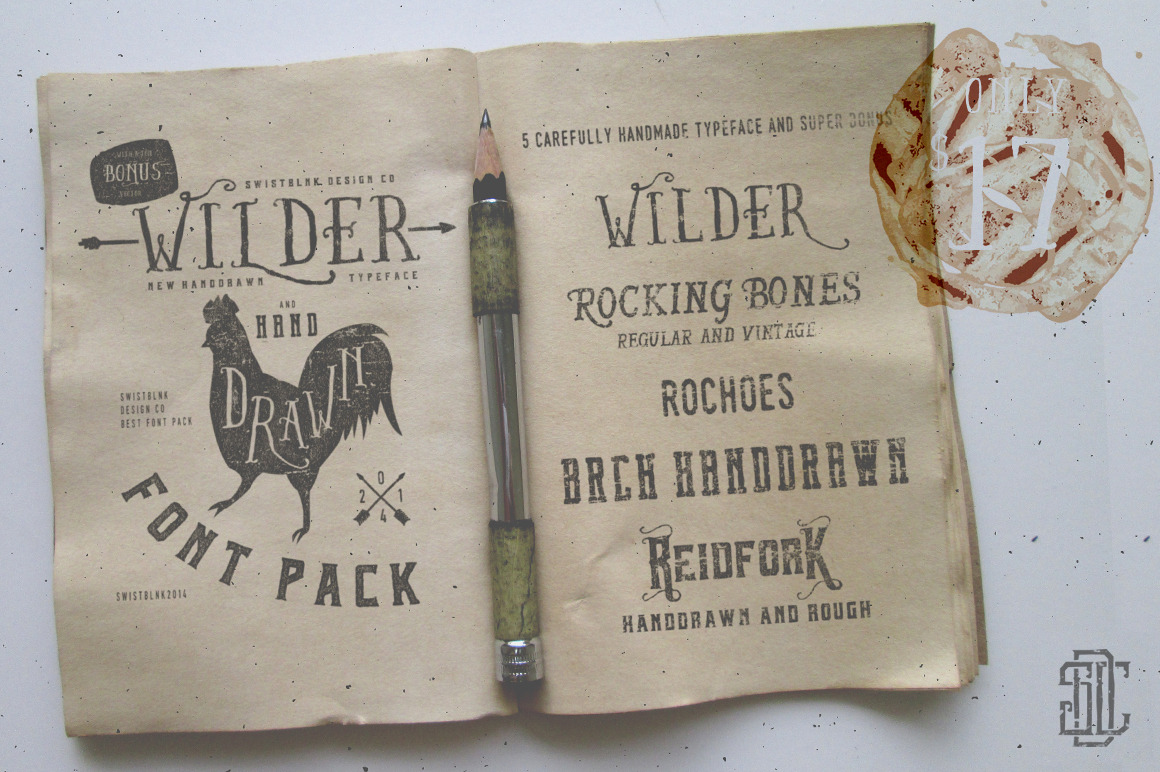
Wilder and Handdrawn Font Pack
- Rochoes : http://crtv.mk/cbts
- Rocking Bones : http://crtv.mk/edeM
- Brch Family : http://crtv.mk/tdNN
- our new "Reidfork Typeface" : http://crtv.mk/dhxV
- and "Wilder Regular", check full Family here : http://crtv.mk/pn6M
- Super Bonus vector shapes and ornaments
- Vintage Handdrawn kit in vector format